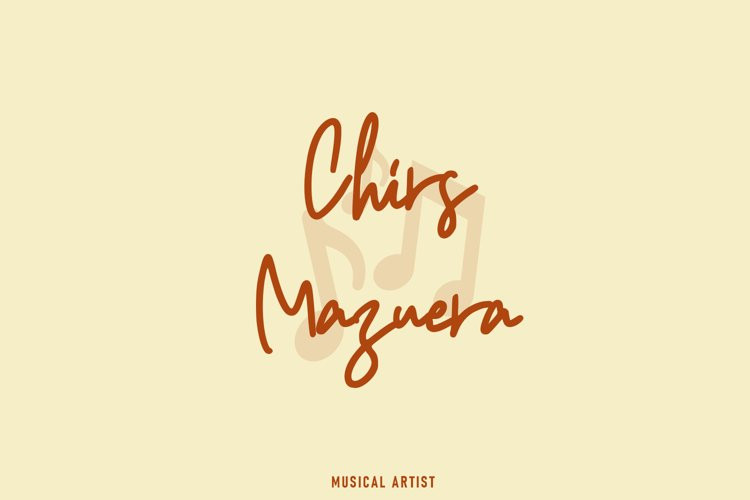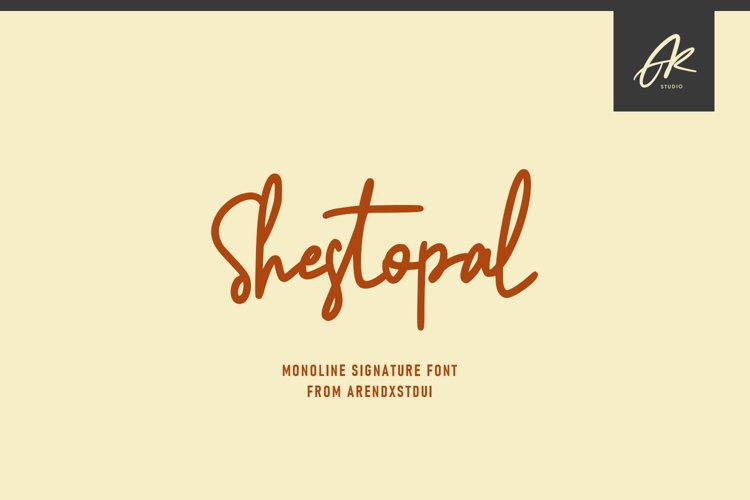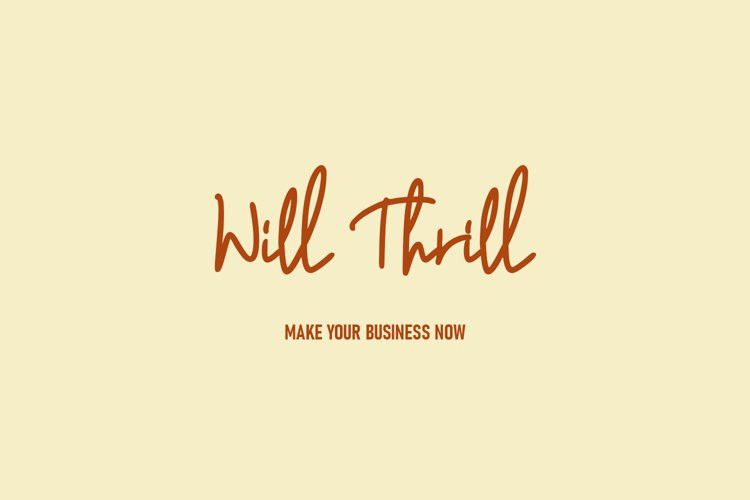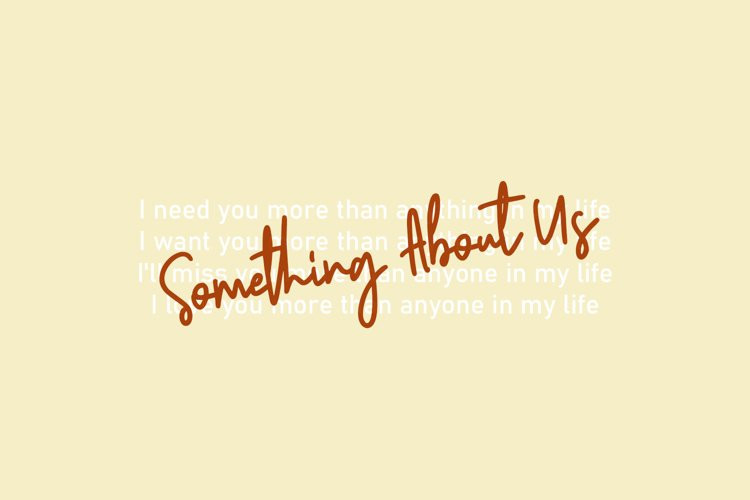
Shestopal Font
Introducing our newest Shestopal Monoline Signature
Shestopal Monoline Signature is made as elegant as possible for the use of your design project. It is suitable for a variety of design projects, including logos & amps, branding, wedding designs, social media posts, advertisements, product designs, magazines and more.